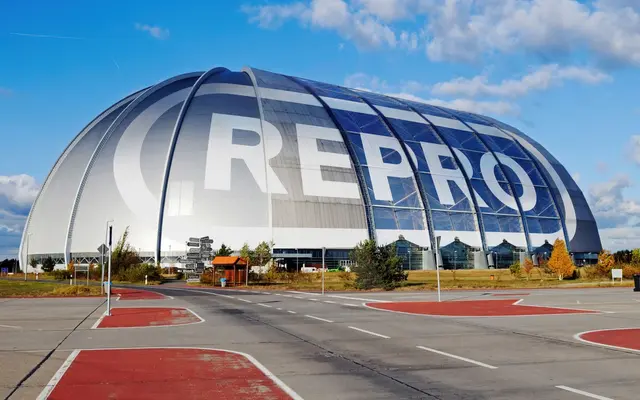
ABC Repro
Dinamo Typefaces · Erkin Karamemet
A friendly, geometric sans inspired by signage and operating systems, with nine weights, italics, a mono cut and an unusually deep set of OpenType features.
A geometric sans by Erkin Karamemet for Dinamo, drawn from signage and digital operating systems and shipped as a comprehensive toolkit. Repro spans nine weights with italics plus a Repro Mono variant, and ships as a customisable variable font with big system functionality and digital interfaces in mind. The OpenType set includes sharp and soft alternates, a 'Screen' weight calibrated for UI, square punctuation, plus a unique tool for circled emphases (numerals or letters inside circles) for visual hierarchy. Bold, reliable and recognisable, it sits between mechanical and personable.
Dinamo describe Repro as a friendly, flexible sans serif inspired by signage and digital operating systems, merging clean design with complex font engineering and an overall geometric feel that is softer than mechanical neighbours.